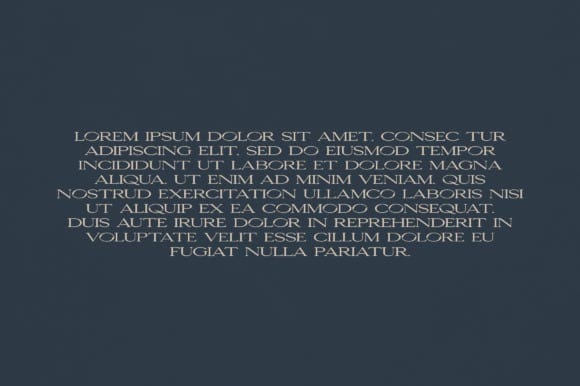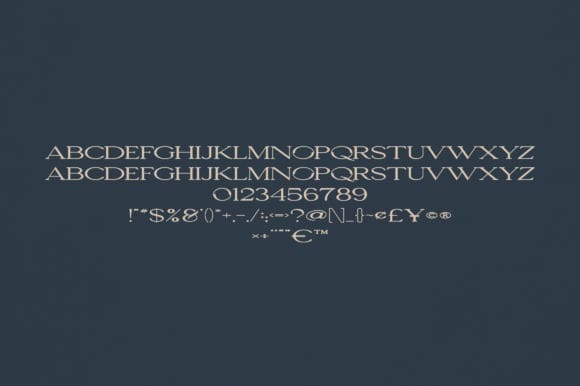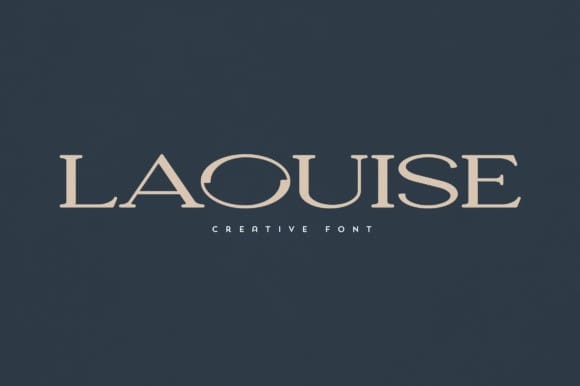
Laouise Font
Laouise Font is an elegant and versatile font that will make your typography truly unique! It will enchant every logo, branding, headline, or plain text!